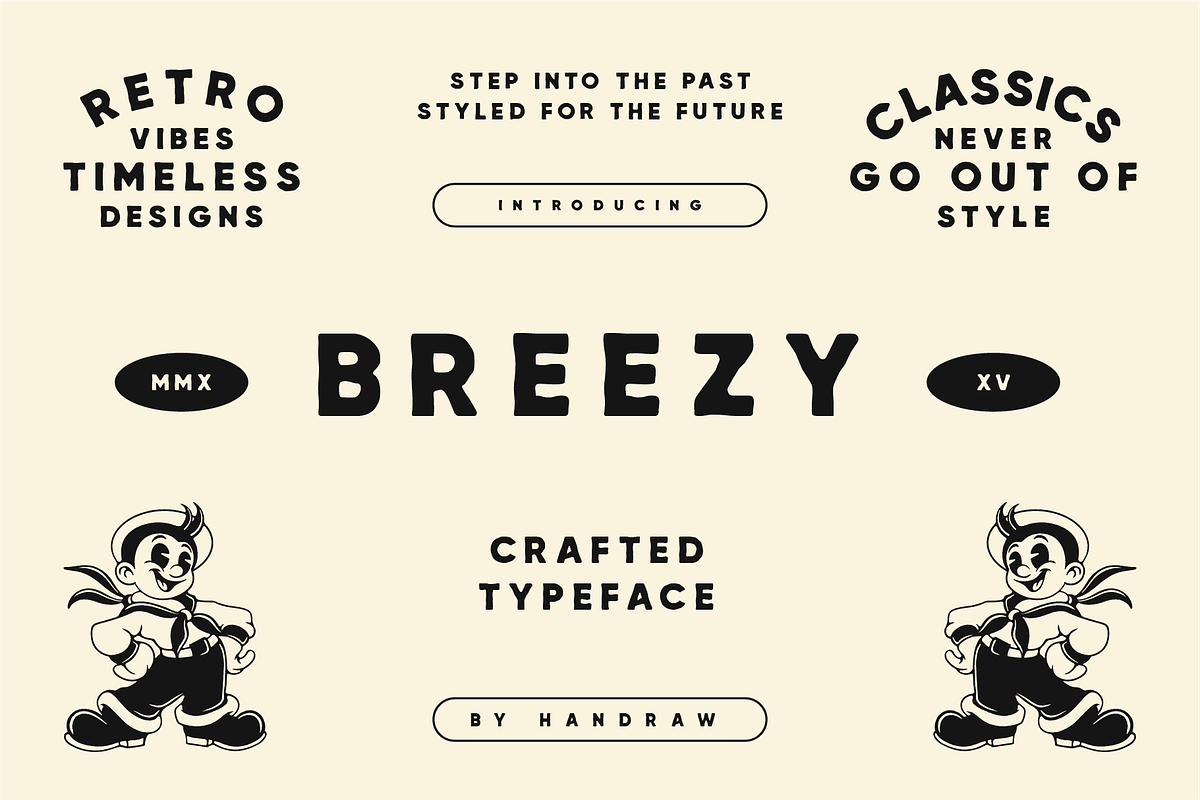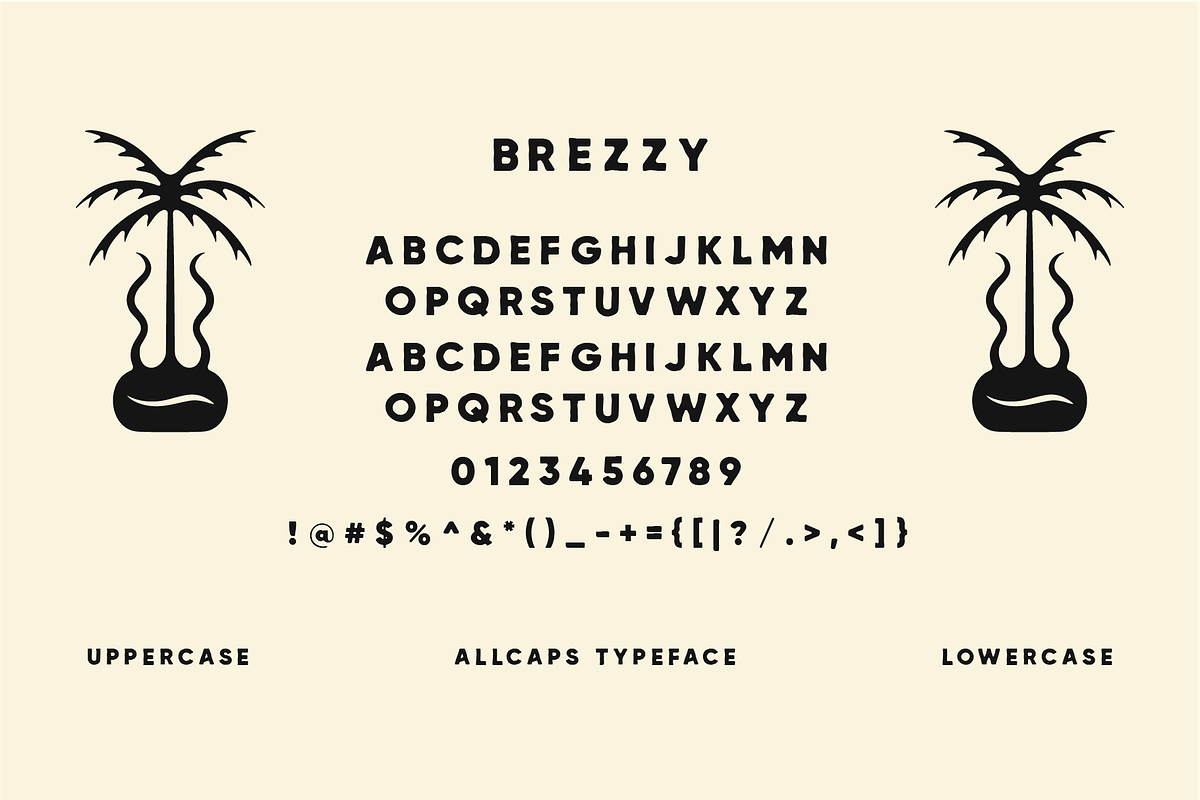
Breezy - Retro Display Font
Breezy Font is a beautifully crafted typeface that captures the essence of vintage design with a unique hand-drawn flair. Inspired by the past but with a timeless charm, this font blends retro aesthetics with a touch of modern versatility. Each character is meticulously crafted to evoke nostalgia, with intricate details and flowing lines that bring a sense of personality and warmth.